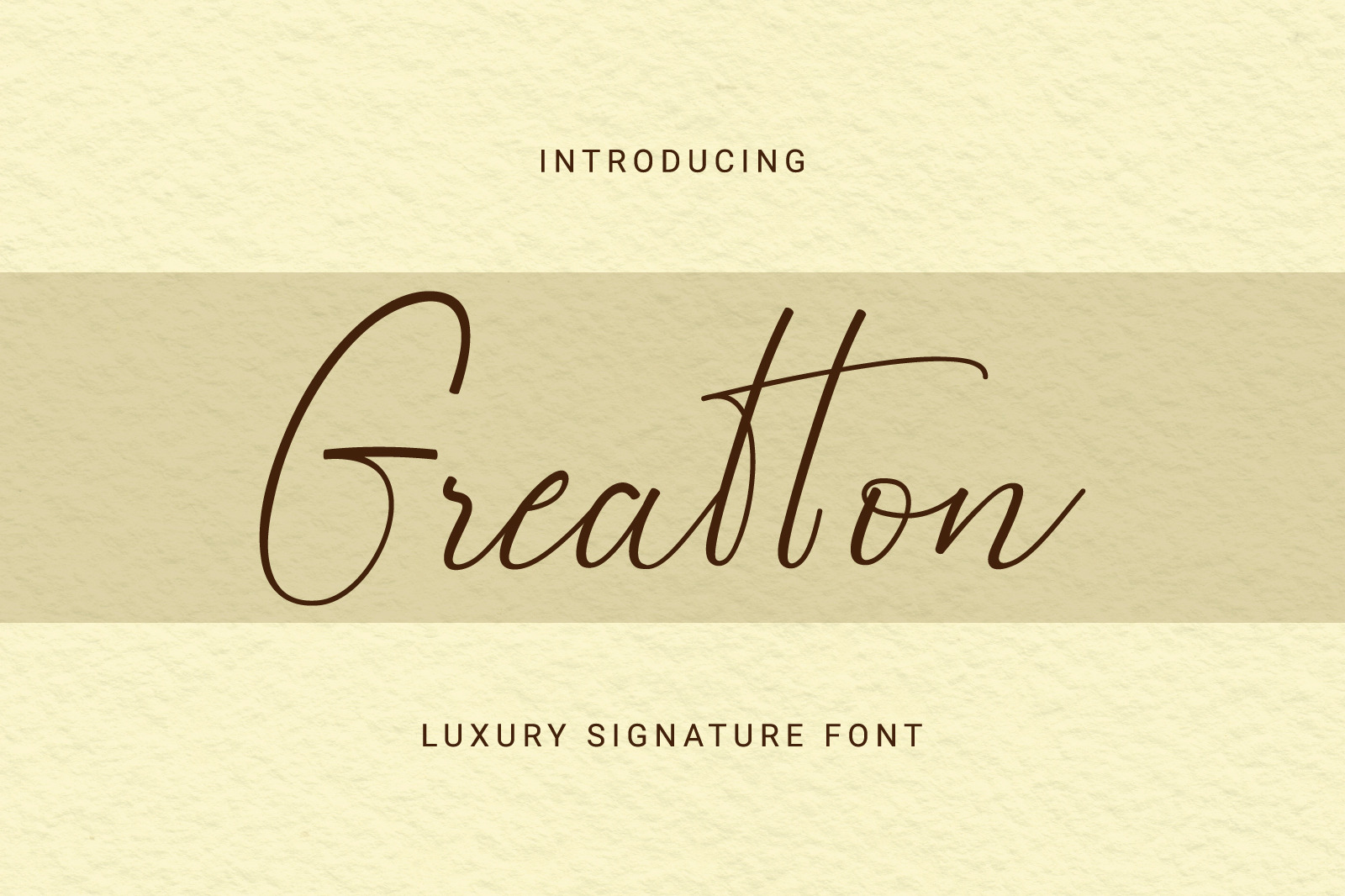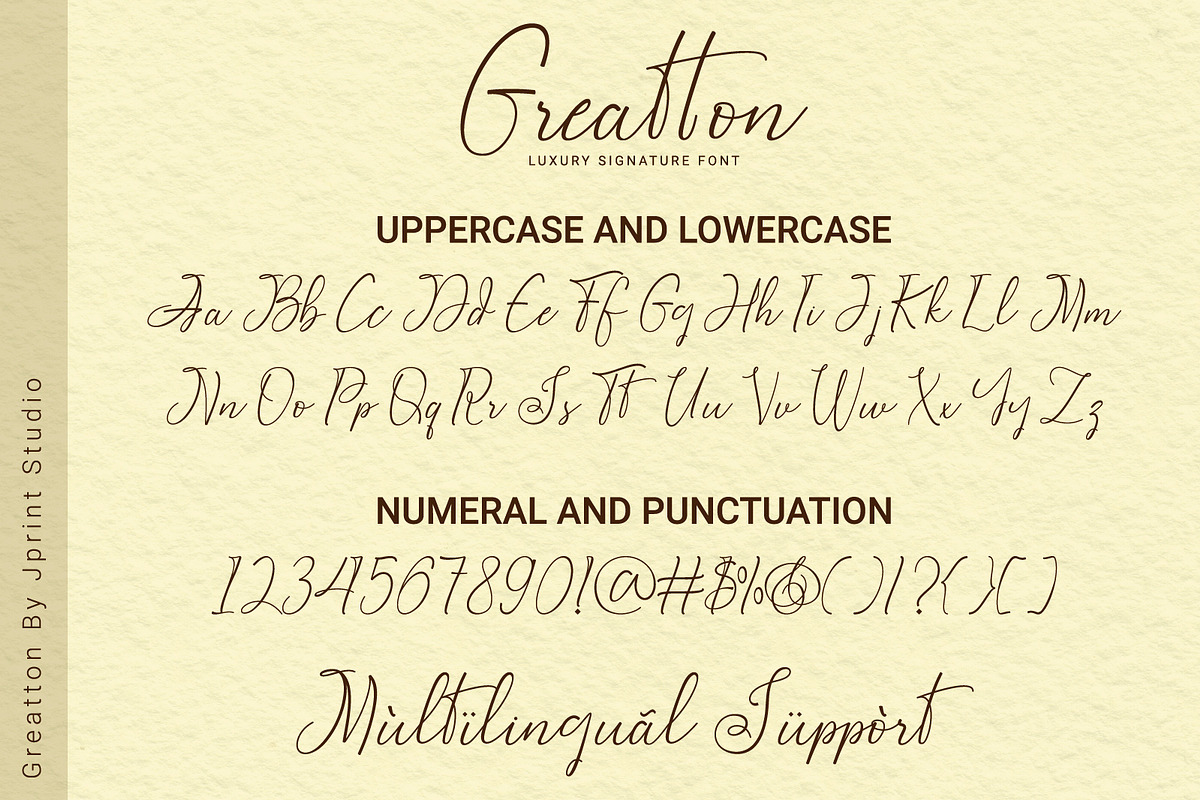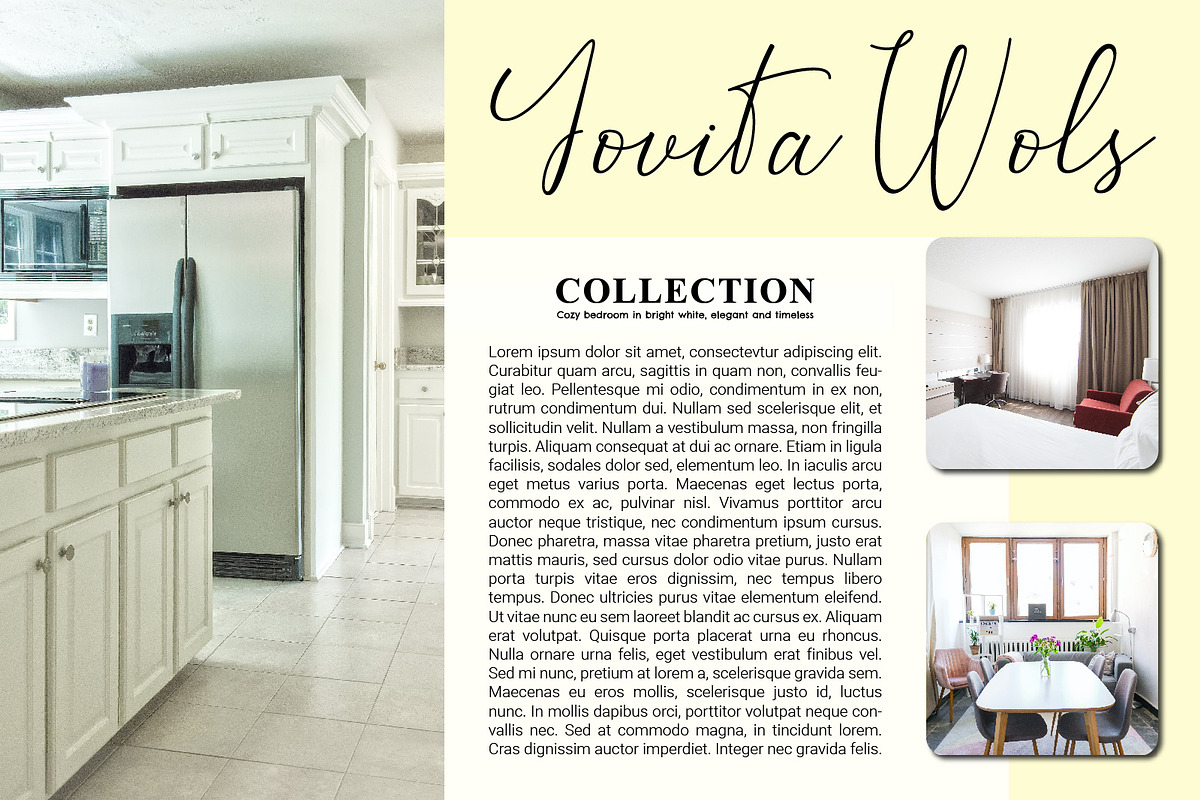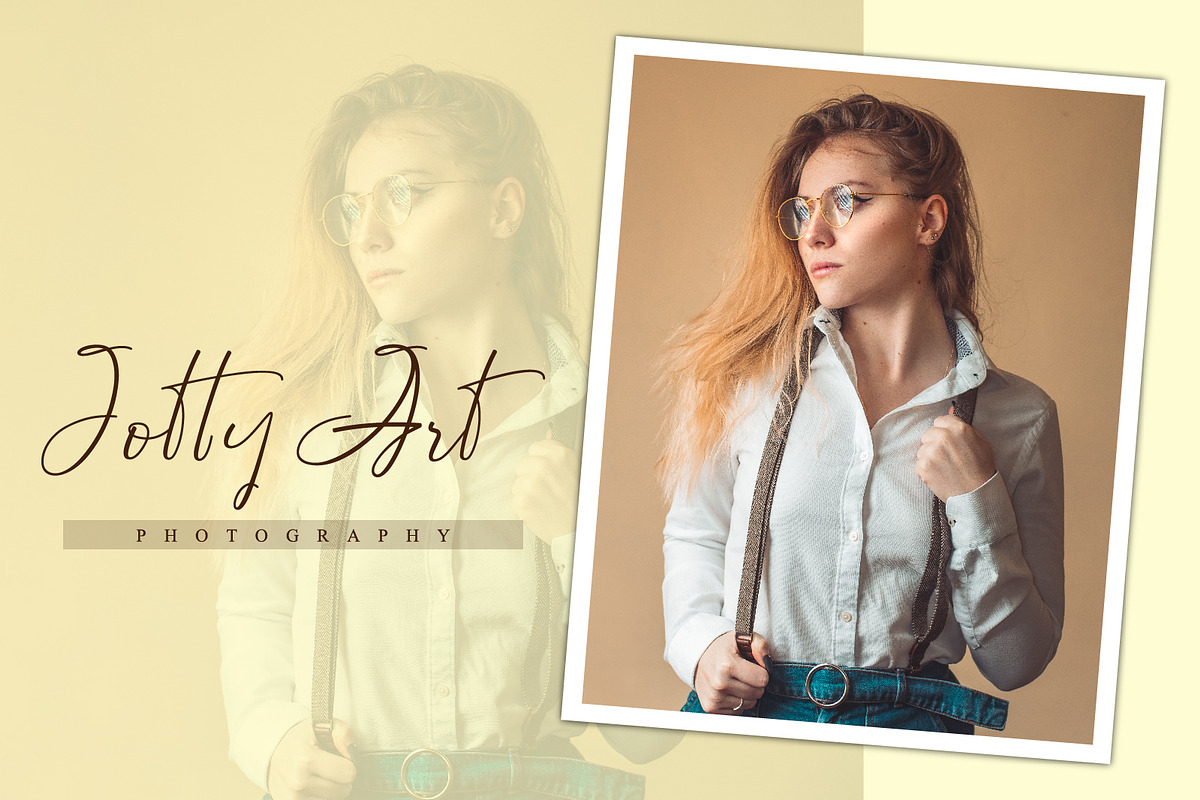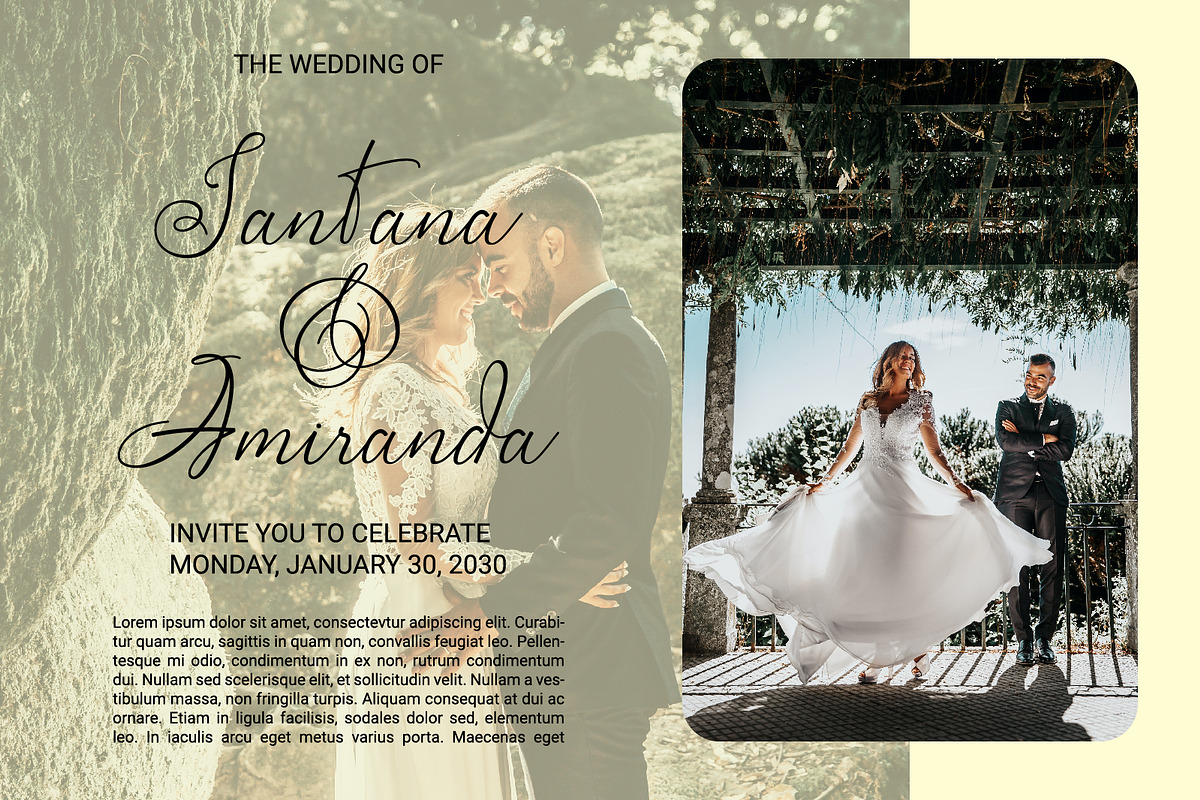
Greatton | Luxury Signature Font
Greatton is a beautiful light handwritten font with a unique feel and a stunning impact. It will add a luxury spark to any design project that you wish to create!